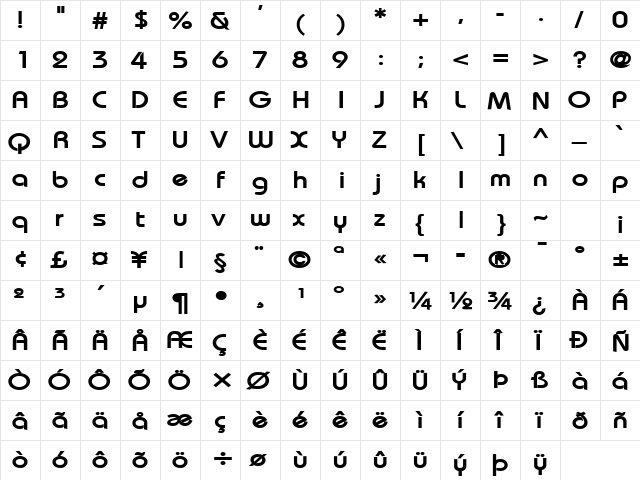
Bimini-Extended Bold Font Preview
Bimini-Extended Bold
Bimini-Extended Bold Font Details
Design Context for Bimini-Extended Typeface
Bimini-Extended offers clean, dependable letterforms without strong stylistic allegiance, making it a practical choice for designers who need flexibility. Its bold stroke weight gives it real presence on the page.